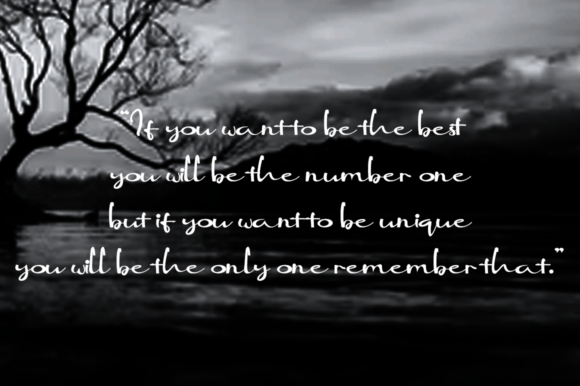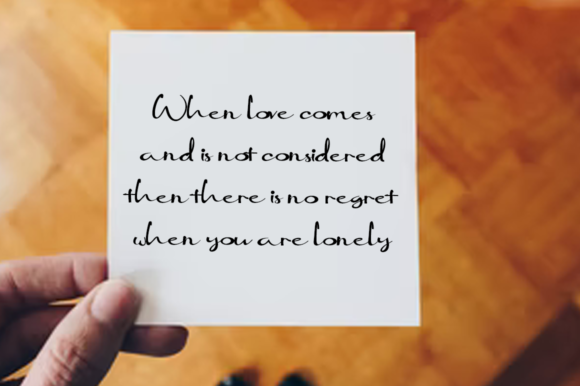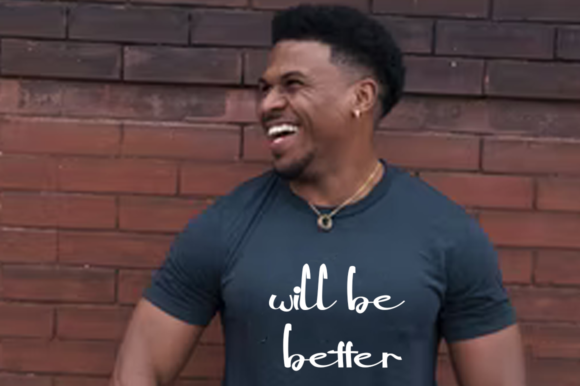
Introduction to Koln Font
As a designer, there’s nothing quite like the thrill of bringing a creative idea to life. You’ve spent hours brainstorming, sketching, and refining your concept, and finally, it’s time to add the finishing touches. That’s where the right font can make all the difference. For me, that font is the Koln Font – a beautiful, timeless handwritten script that adds a touch of elegance to any design.
With its unique, handcrafted feel, the Koln Font is the perfect choice for designers looking to create eye-catching logos, branding, and quotes. Whether you’re working on a high-end project or a low-budget creative endeavor, this versatile font is sure to elevate your design and leave a lasting impression. And the best part? You can download the Koln Font for free, making it a valuable resource for designers of all levels.
Key Features of Koln Font
- High-quality design font ideal for creative projects and design resources.
- Unique, elegant design with a transparent background, making it perfect for use on any color scheme.
- Includes a range of glyphs and characters, suitable for various languages and writing systems.
- Designed to be highly legible and versatile, suitable for use in various design contexts.
Honest Review: Koln Font
I recently had the chance to work with the Koln Font, and I must say it’s been a fantastic addition to my design resource library. ✨ The free download was a huge plus, and the high quality of the font is immediately noticeable.
One of the standout features of Koln Font is its transparent background, which makes it incredibly versatile for use in creative projects. The font is also highly customizable, allowing designers to tweak it to fit their specific needs.
- What works well:
- Highly customizable
- Limitations:
- May not be suitable for extremely small font sizes
- Some users may find the font’s style too minimalist
Overall, I’m thoroughly impressed with the Koln Font. It’s a fantastic design resource that’s sure to elevate any creative project. If you’re in the market for a high-quality font, I highly recommend giving Koln Font a try.
How to Use Koln Font
The Koln Font is ideal for various design projects, including:
- Food and beverage branding
- Travel and tourism marketing
- Wedding stationery and invitations
- Magazine and newspaper headlines
To get the most out of the Koln Font, experiment with different font sizes, colors, and combinations with other design elements. This will help you create a unique and eye-catching design that stands out from the crowd.
Alternatives to Koln Font
Great Vibes is a high-quality, elegant script font that is perfect for creative projects that require a touch of sophistication. It’s available for free download and can be used on various design resources. When to use: wedding invitations, art prints, and other elegant designs.
Great Vibes is similar to Koln Font in terms of its elegant and refined look, but it has a more modern and sleek feel. While Koln Font is more suitable for formal and traditional designs, Great Vibes is ideal for modern and creative projects.
Dancing Script is a beautiful and elegant script font that is perfect for creative projects that require a touch of whimsy. It’s available for free download and can be used on various design resources. When to use: invitations, greeting cards, and other playful designs.
Dancing Script is similar to Koln Font in terms of its elegant and refined look, but it has a more playful and dynamic feel. While Koln Font is more suitable for formal and traditional designs, Dancing Script is ideal for modern and creative projects.
Pacifico is a beautiful and elegant script font that is perfect for creative projects that require a touch of sophistication. It’s available for free download and can be used on various design resources. When to use: wedding invitations, art prints, and other elegant designs.
What is the recommended resolution for using the Koln Font in high-quality designs?